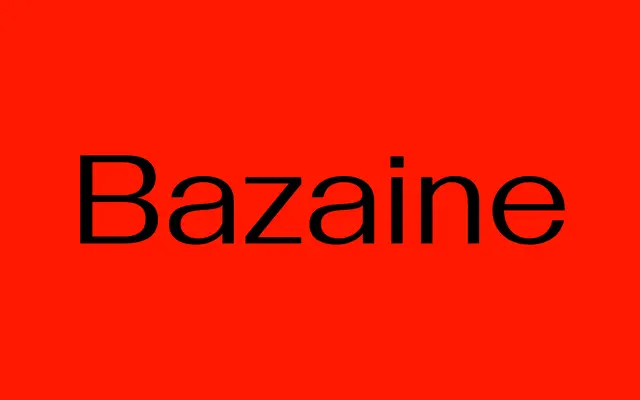
BST Bazaine specimen from British Standard Type
A contemporary grotesque derived from Wim Crouwel's 1959 hand-lettered poster for a Jean René Bazaine exhibition at Eindhoven's Van Abbemuseum.
The letterforms originate from a single word on a Crouwel exhibition poster, extrapolated into a full family spanning seven weights from Thin to Bold. Compact boxy widths, a high x-height and tight apertures give the typeface a taut, distinctive silhouette, while asymmetric junctures introduce an uncommon tension across both display and text settings. OpenType features include unicase capitals, small caps and alternate forms for further typographic control.
Described explicitly as a contemporary grotesque, drawing from hand lettering on a Wim Crouwel poster; its high x-height, tight apertures and asymmetric junctures are characteristic of expressive grotesque design.